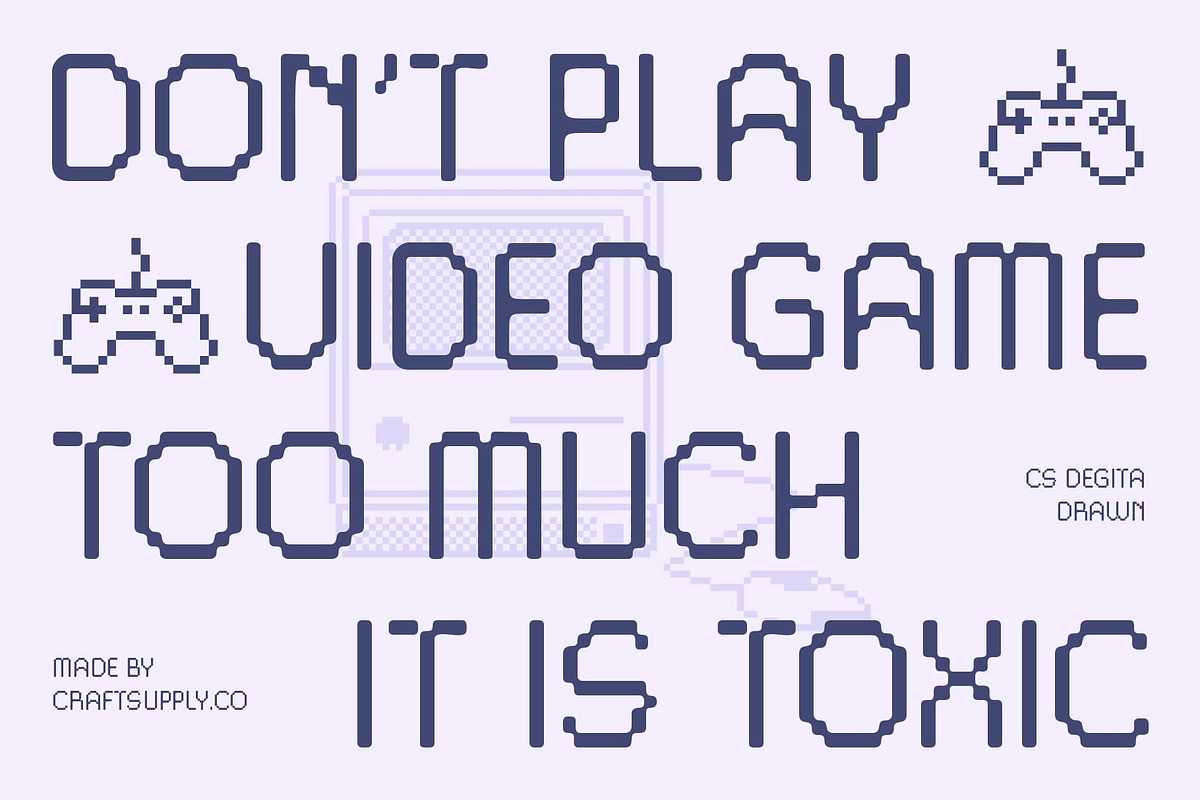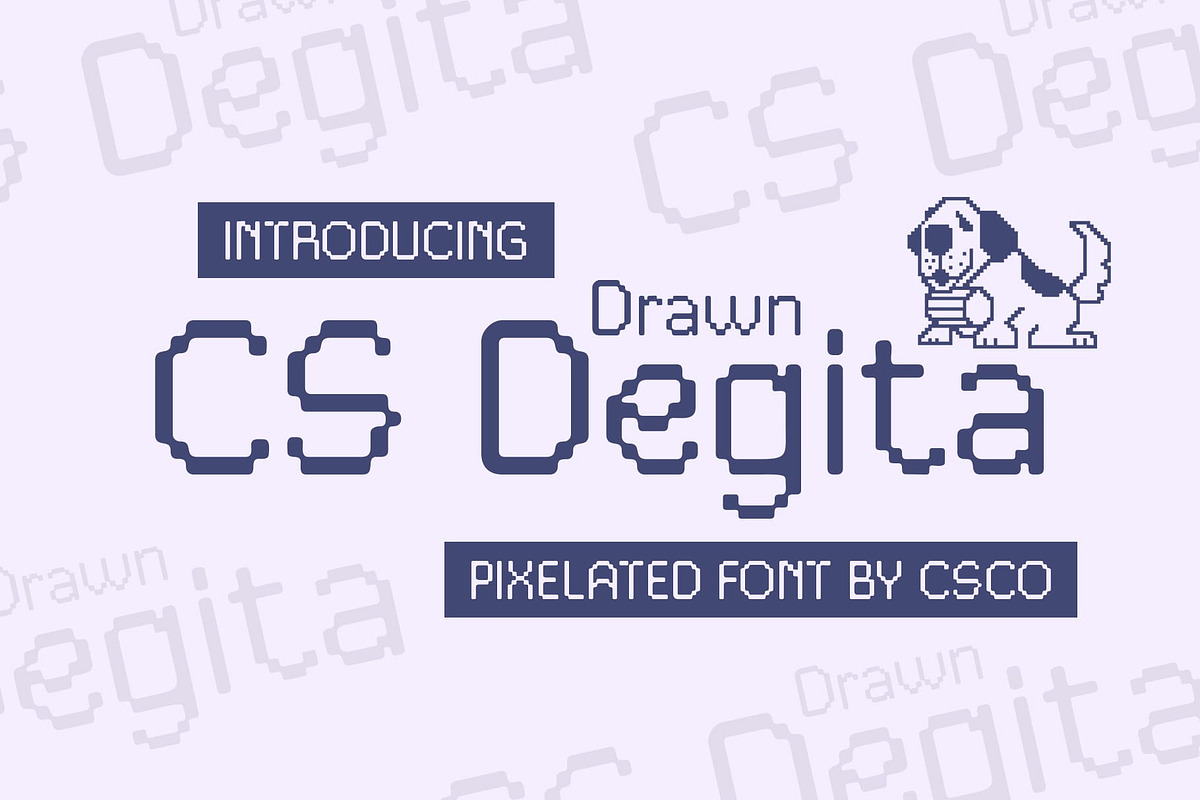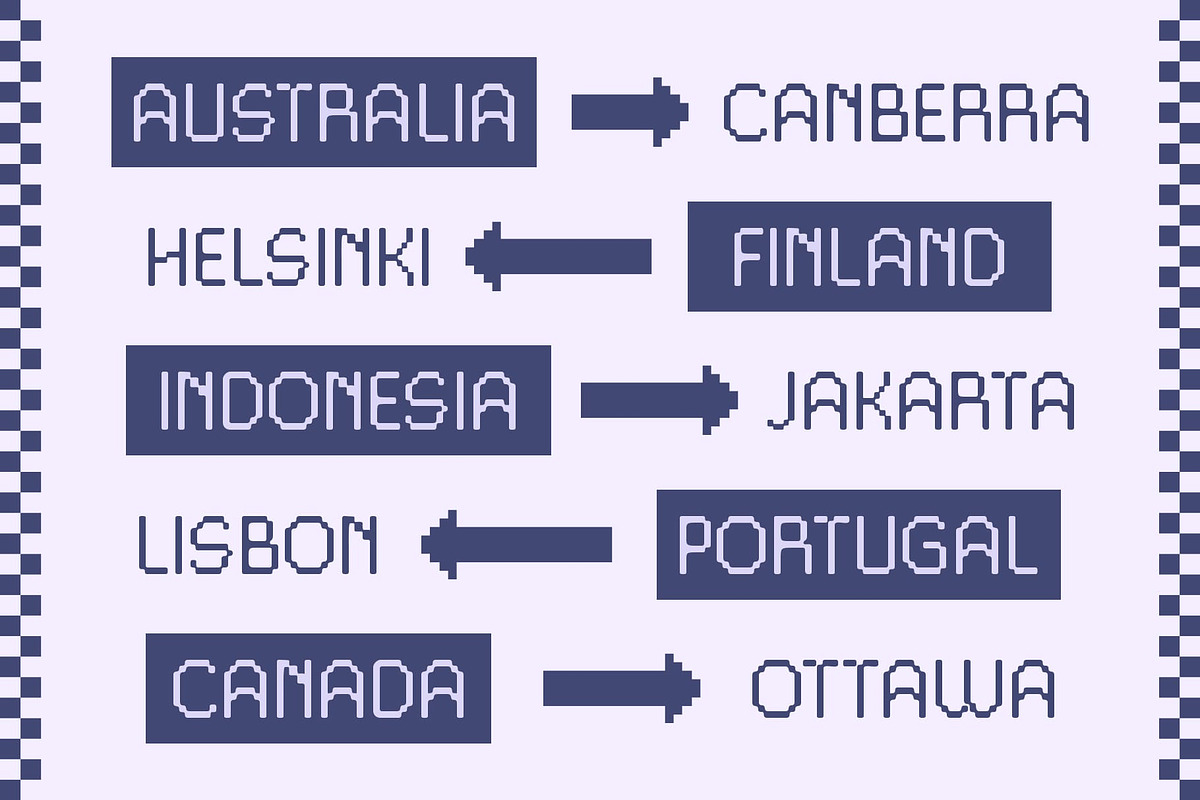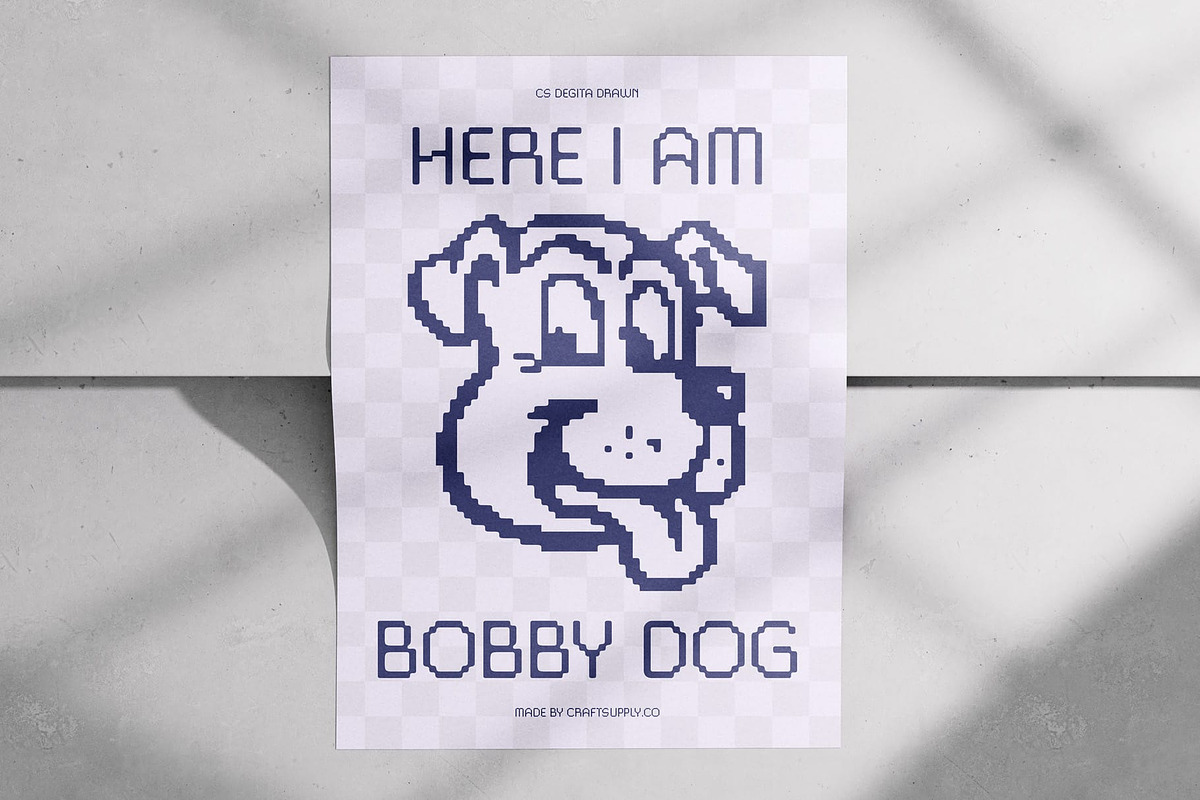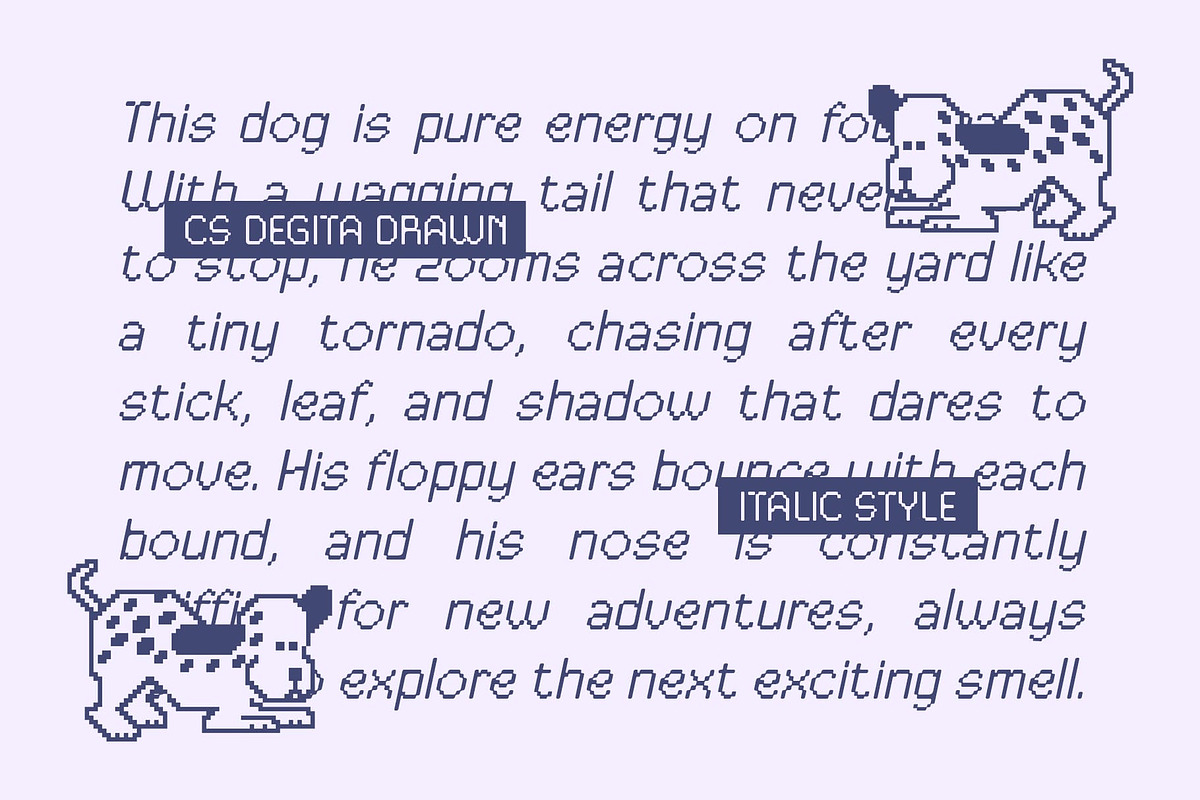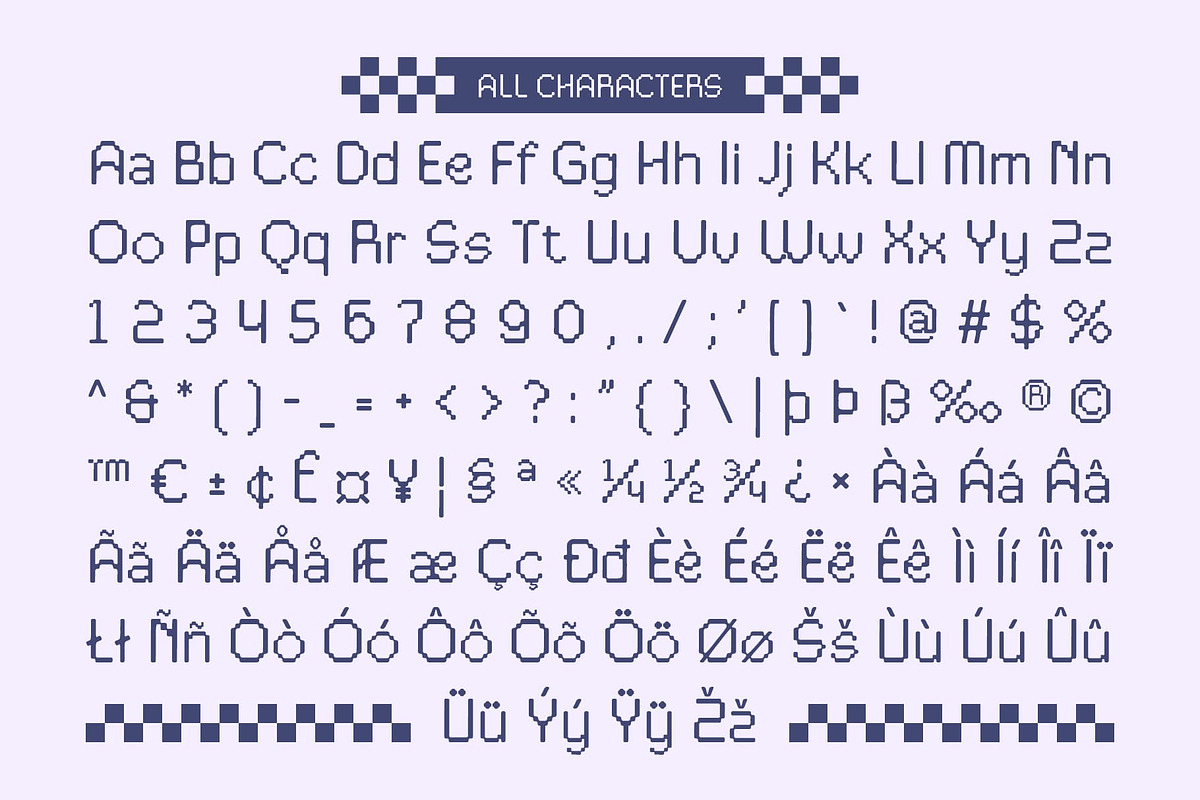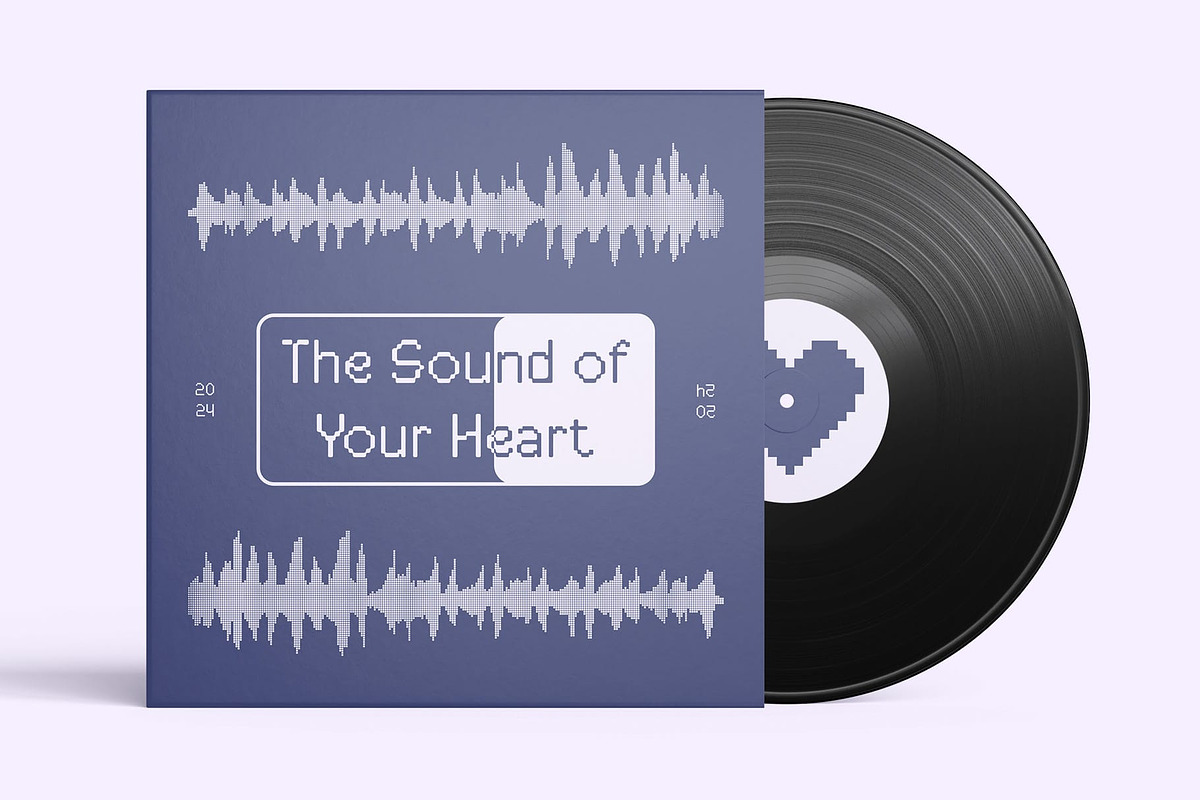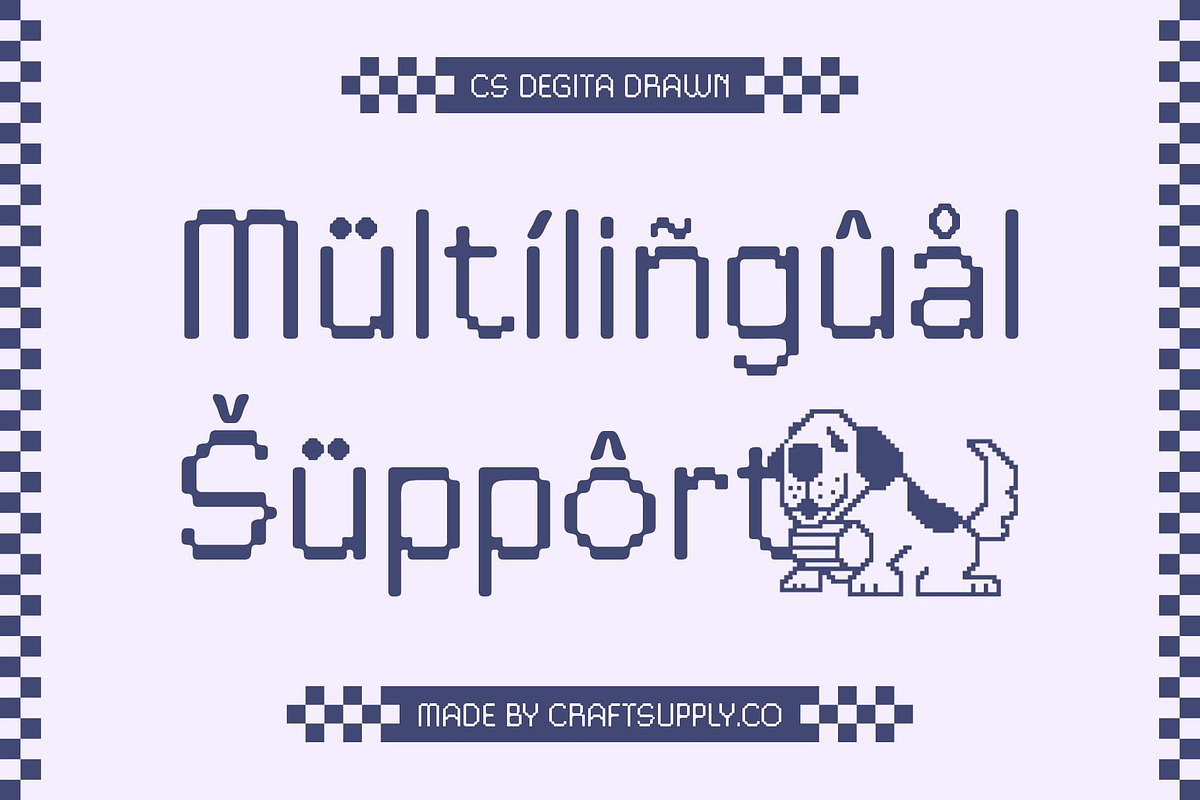
CS Degita Drawn
CS Degita Drawn: A Playful Nod to Retro Pixel Art
**Retro Pixel Display Font with Unique Character CS Degita Drawn is a retro pixel display font that beautifully captures the essence of nostalgia from the early digital era. Featuring distinctive letterforms composed of small squares, this font evokes the charm of classic computer graphics and video games from the ’90s. Its playful character makes it a standout choice for designs that aim to transport audiences back to a time when digital creativity was just beginning to flourish.
Handcrafted Layered Drawn Effect What sets this font apart is its layered drawn effect, which adds a delightful handmade touch to the pixelated style. This effect imbues each letter with depth and warmth, as if the characters were lovingly painted by hand. The result is a font that combines the digital with the organic, providing a unique blend of nostalgia and creativity that resonates with both retro enthusiasts and modern audiences alike.
Perfect for Unique and Creative Projects This font is ideal for a variety of projects that seek to express individuality and creativity. Whether it’s for event posters, merchandise designs, or branding that emphasizes retro and playful themes, this drawn font effortlessly delivers a sense of fun and imagination. Its vibrant pixelated style radiates joyful energy, making it a perfect choice for conveying messages that inspire excitement and engagement.